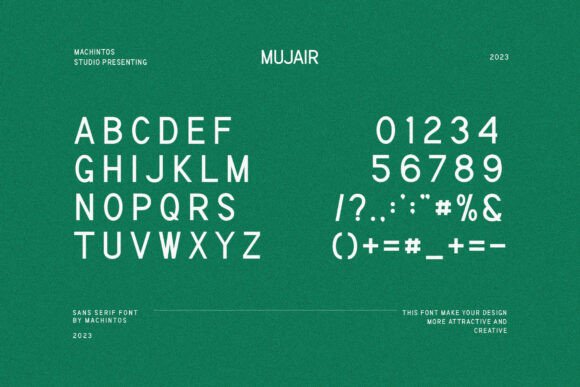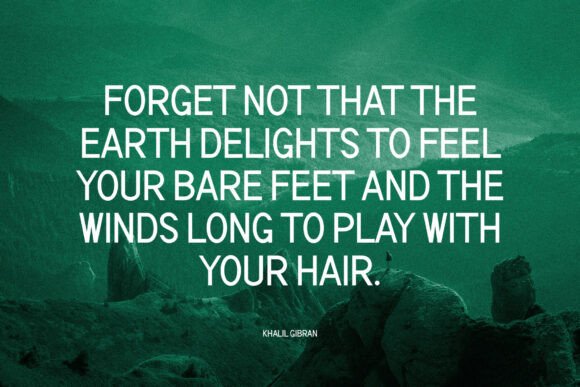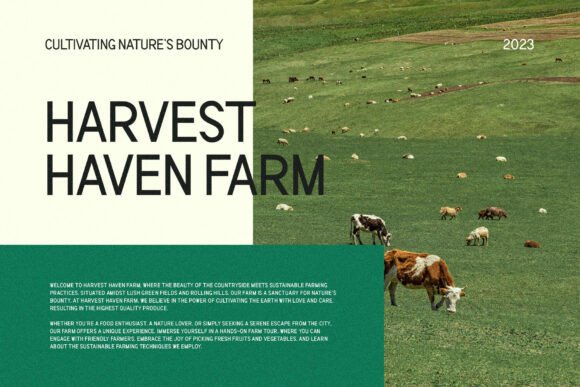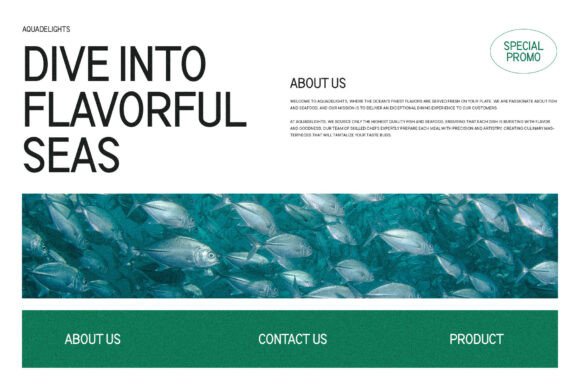
Introduction to Mujair Font
Mujair is a gorgeous and bold sans serif font, crafted to give your headlines and logotype projects a stylish touch.
This font reads as strong, confident, and dynamic and can add tons of nostalgic character to your designs .